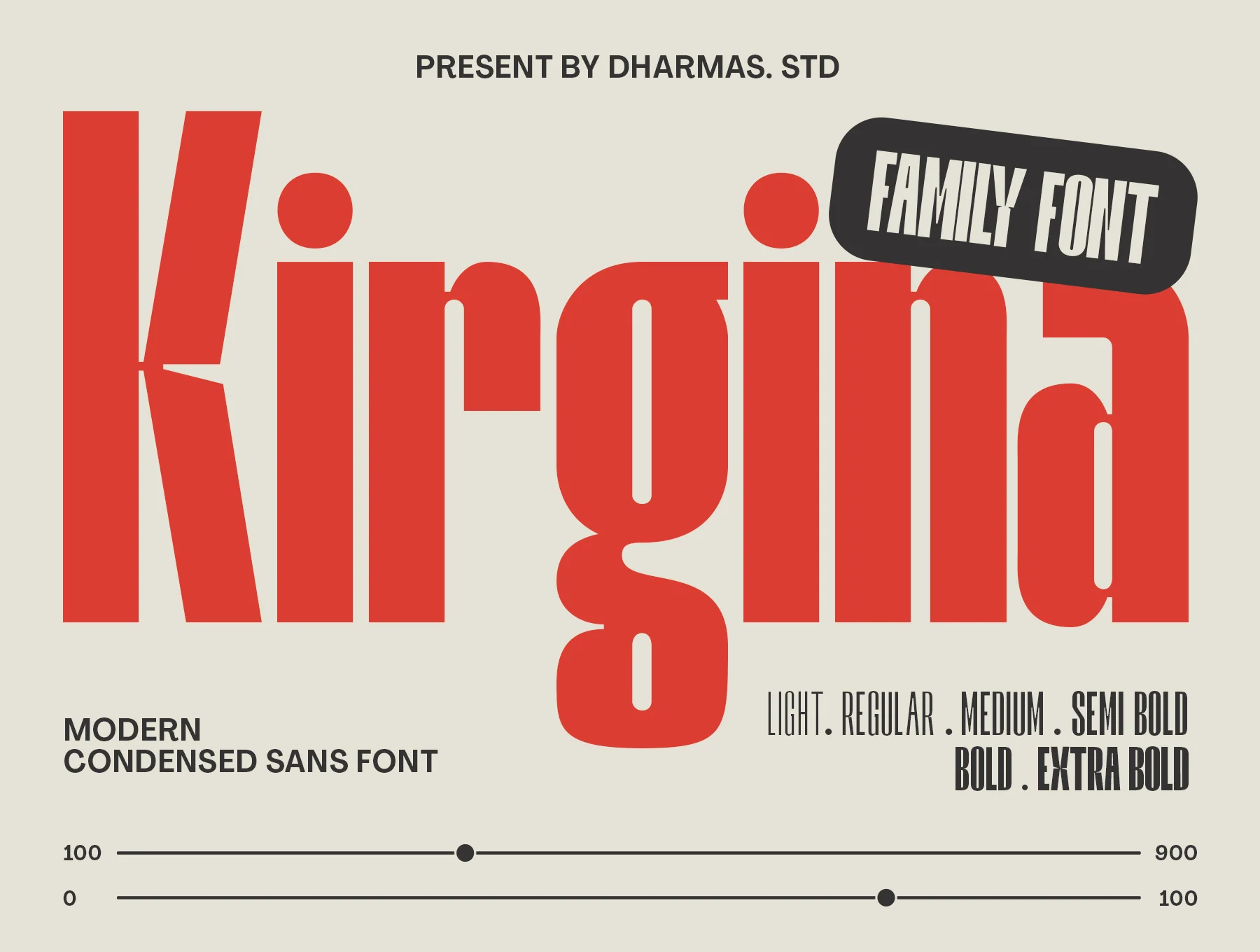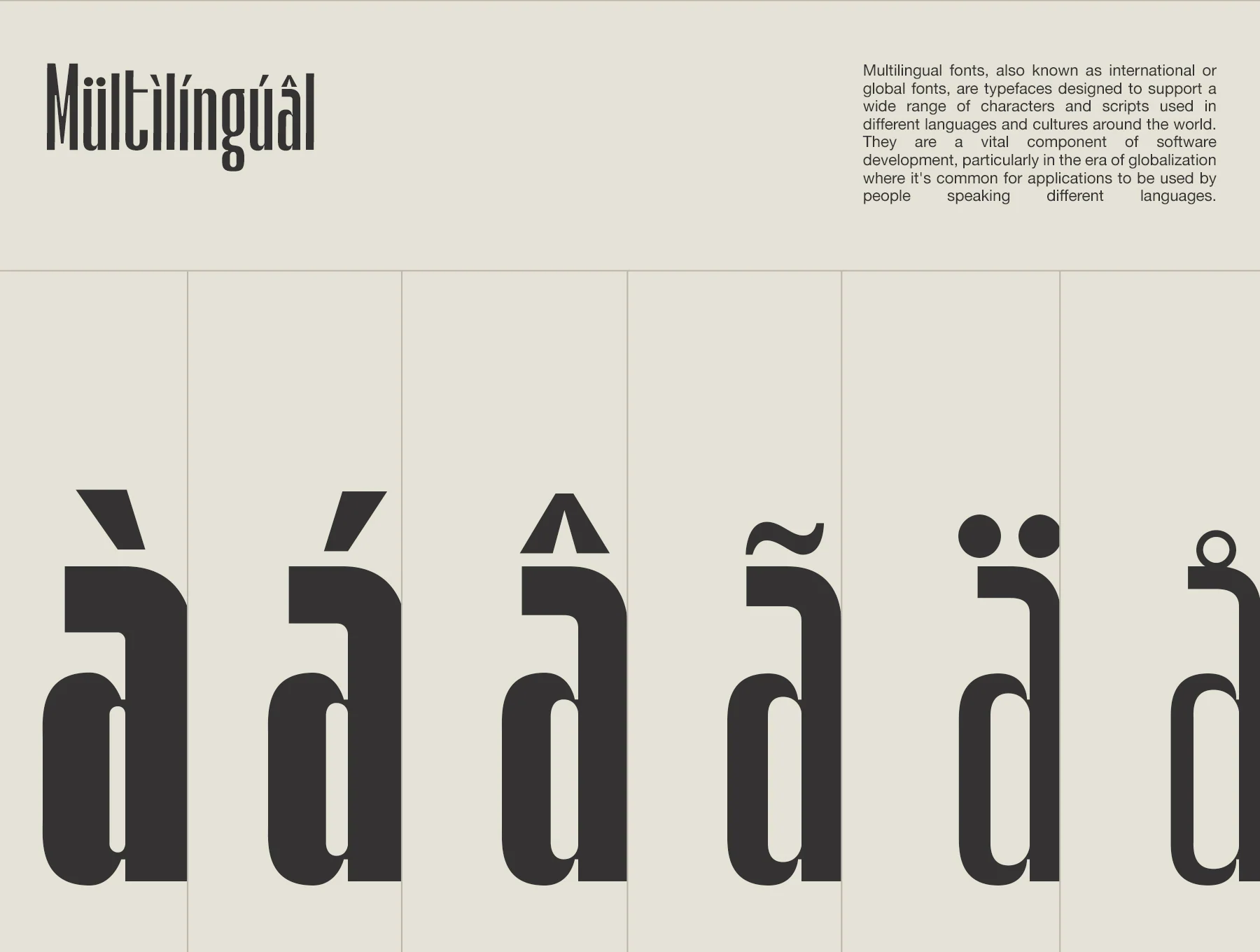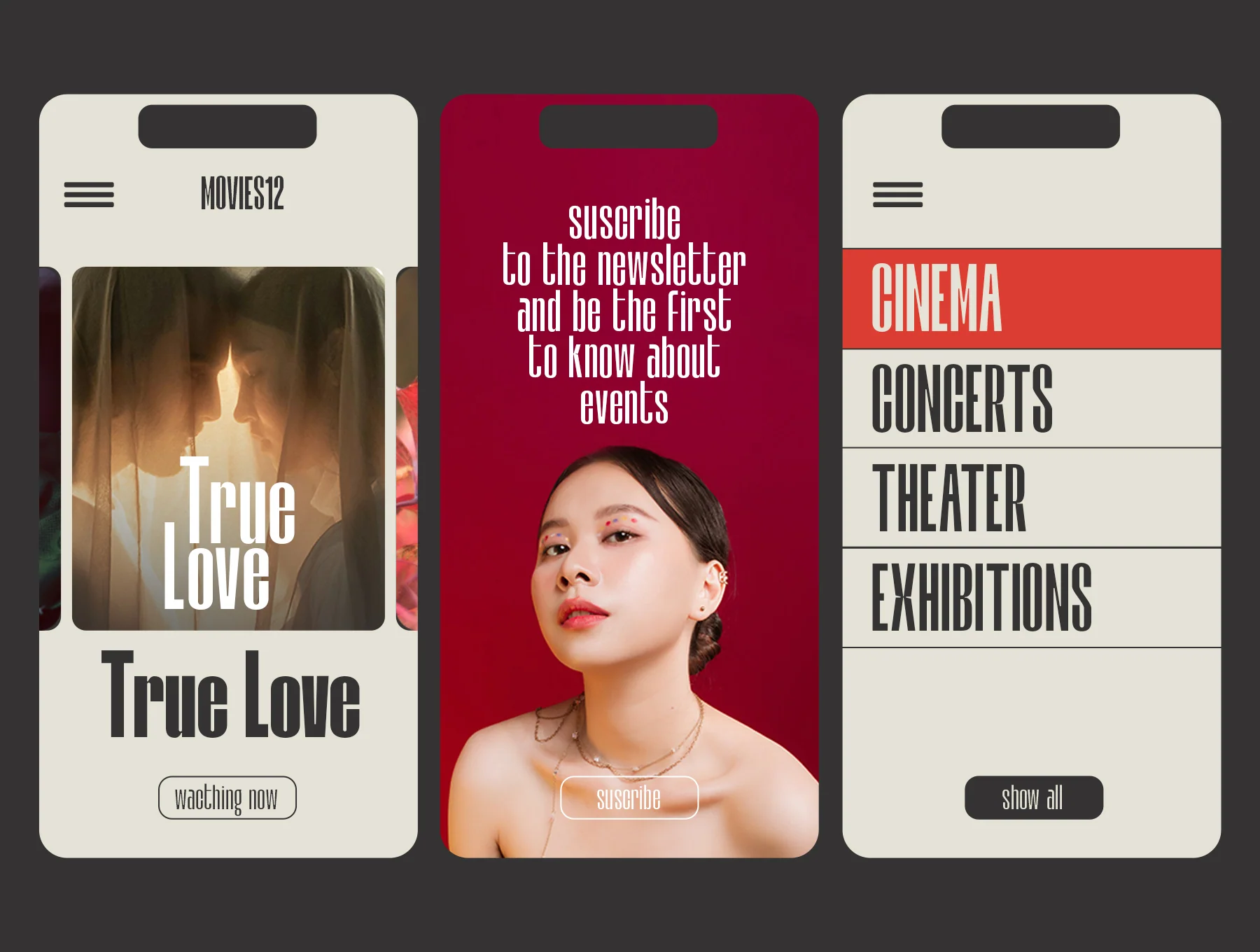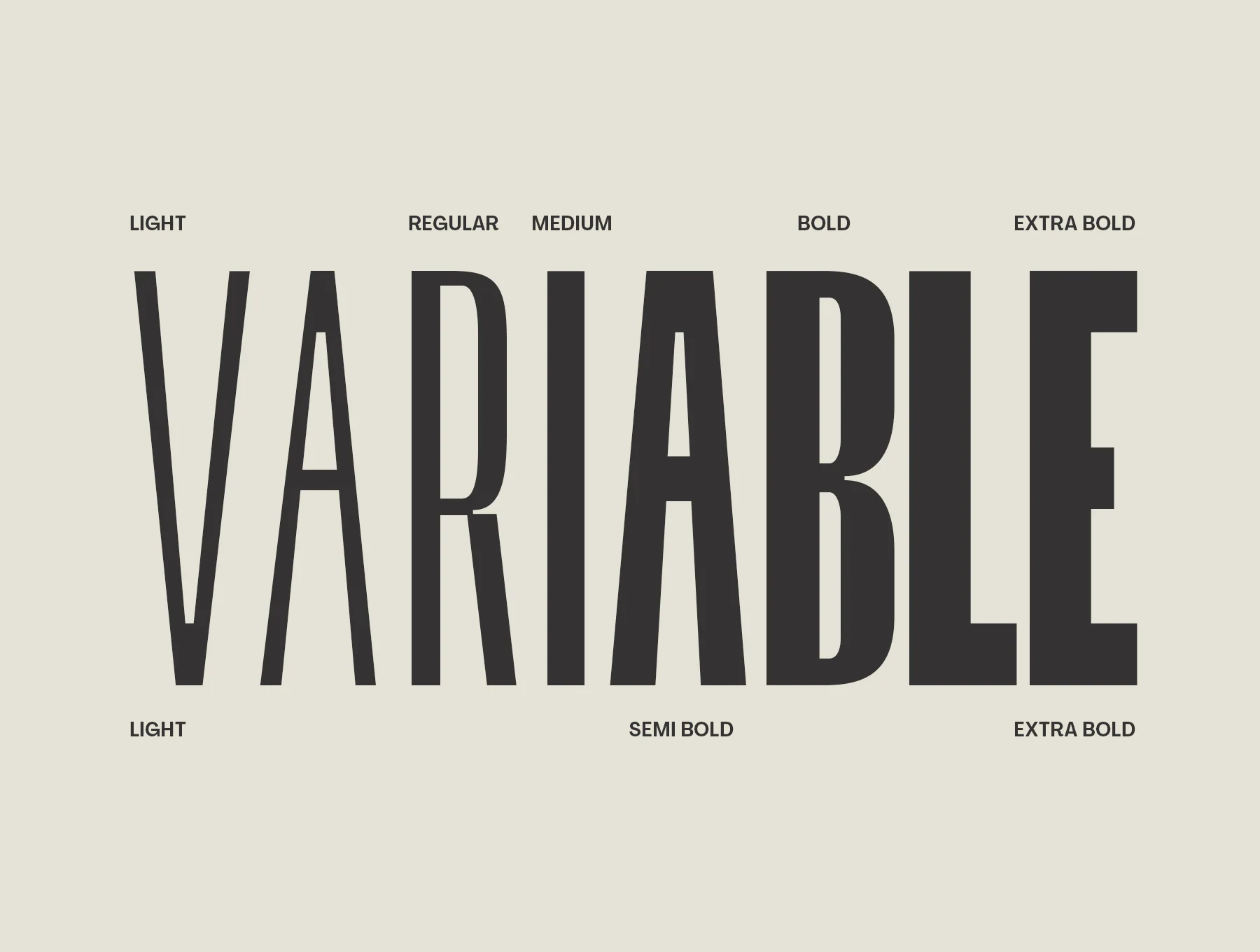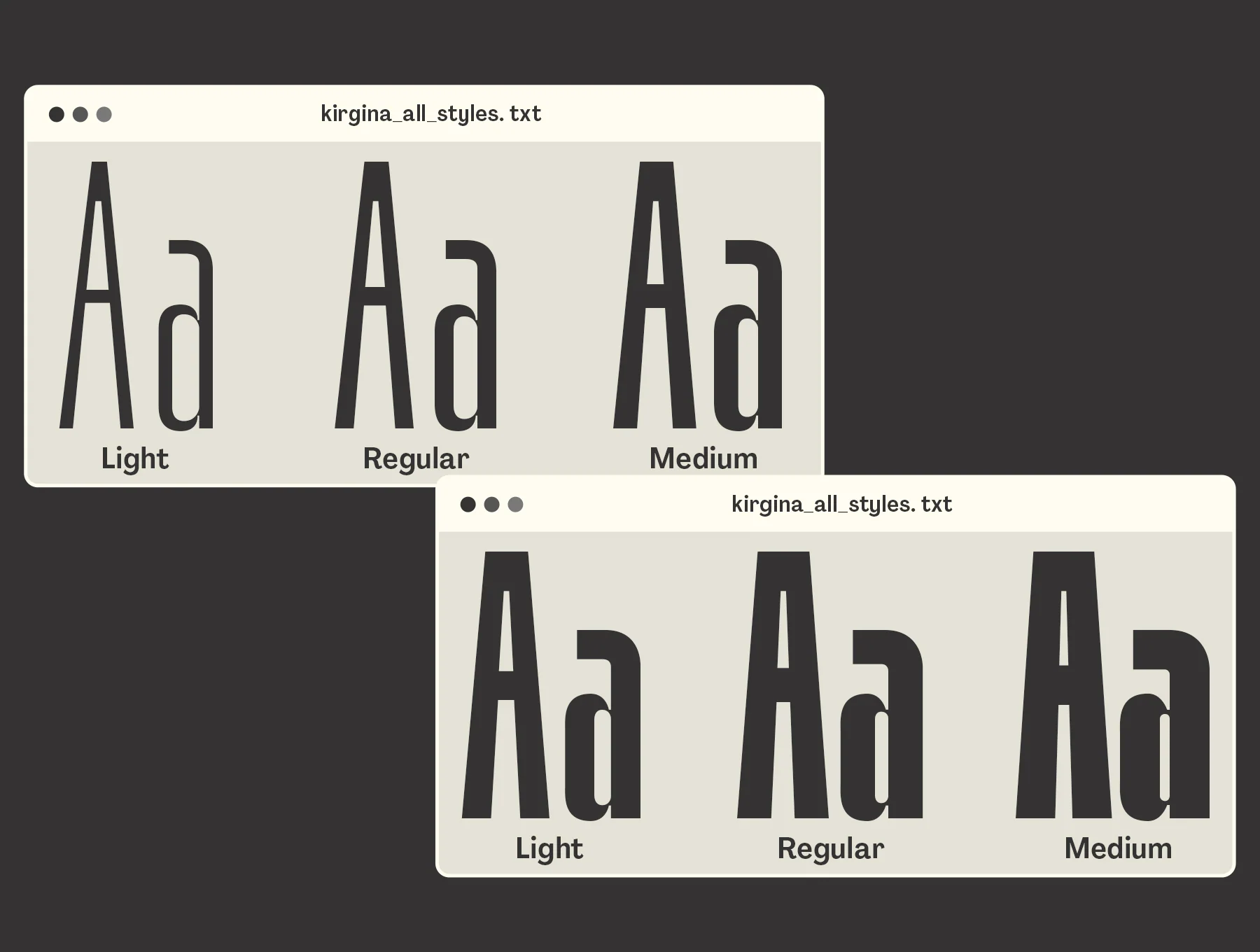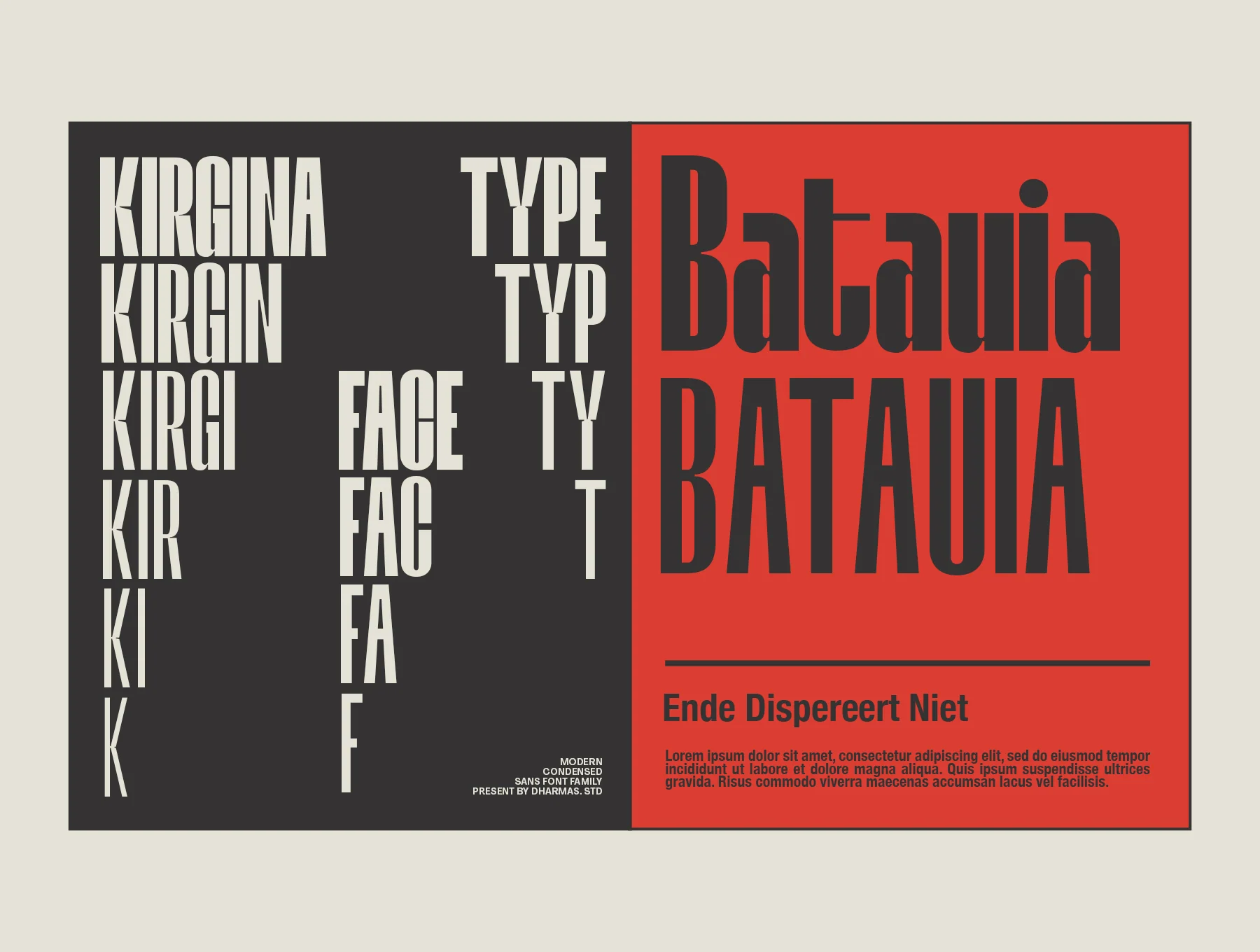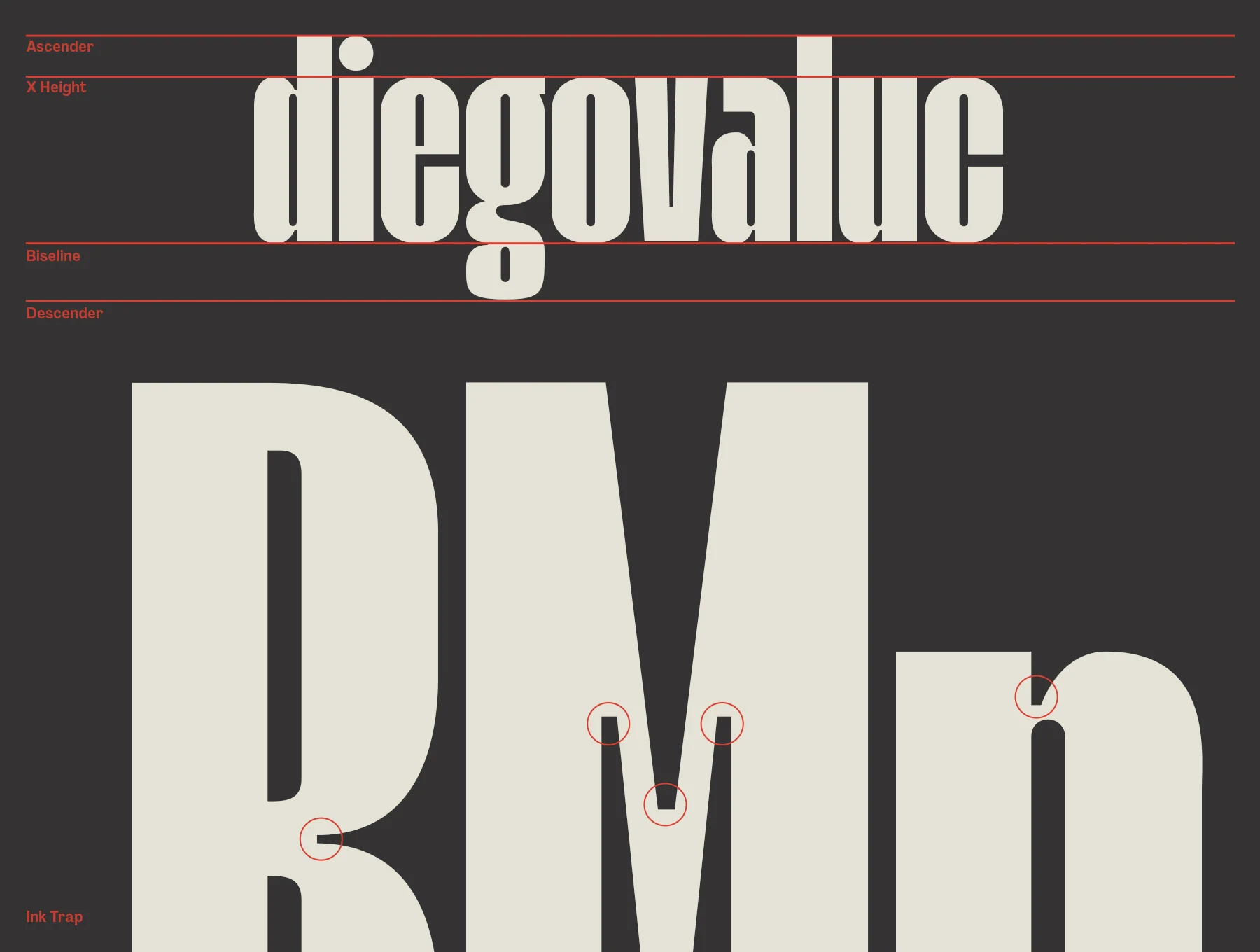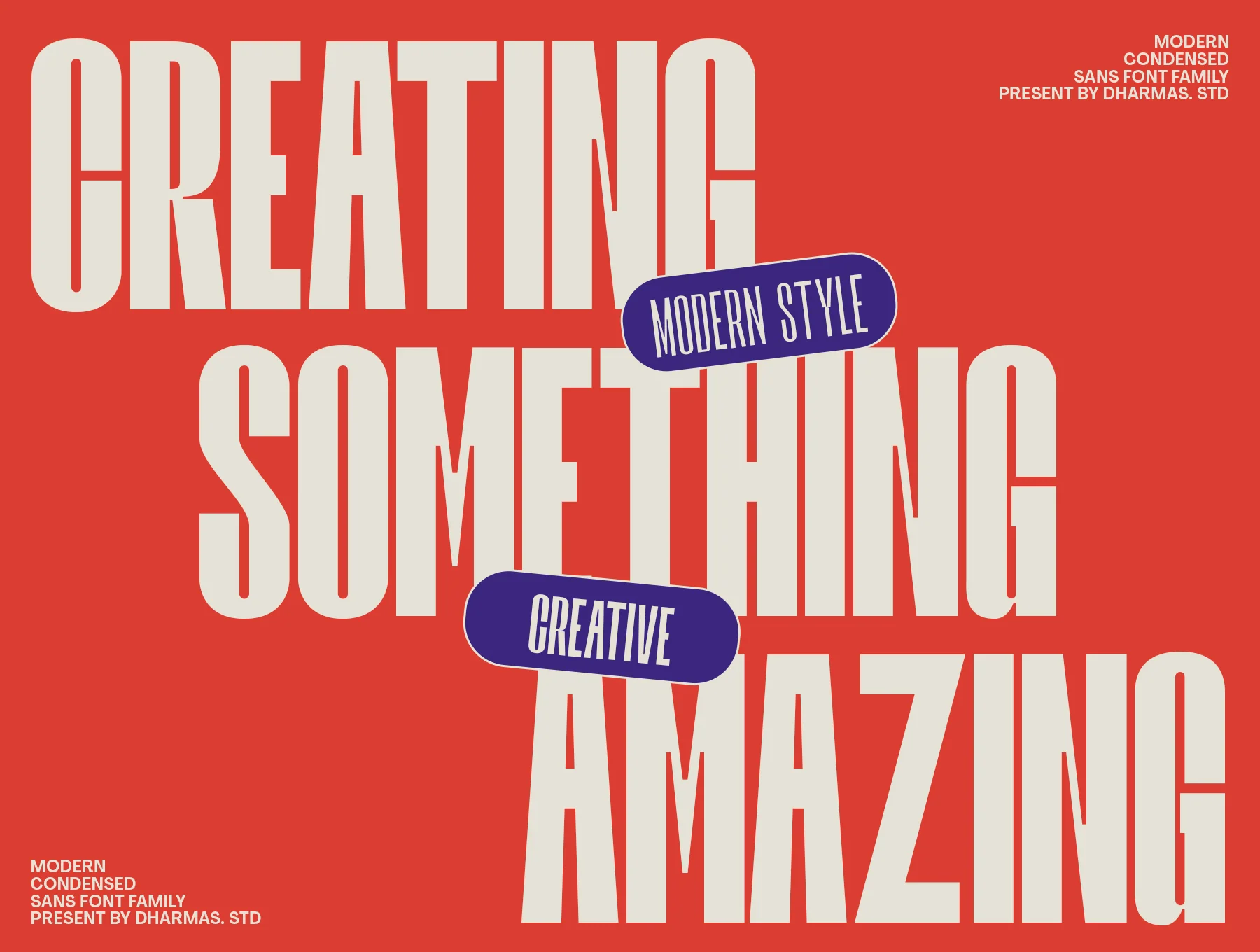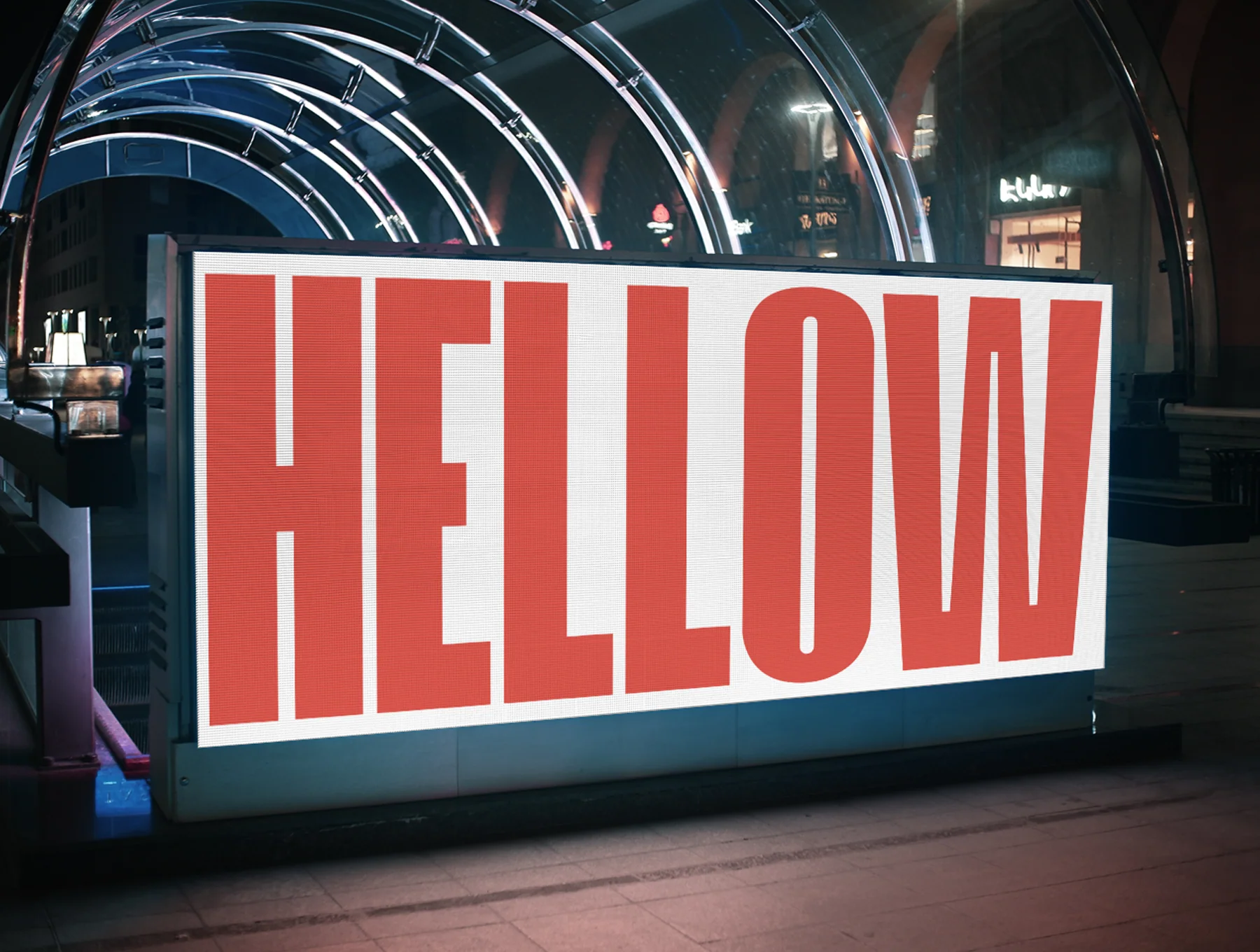
Kirgina - UI Condensed Font
Meet Kirgina, an ultra-condensed sans serif with a highly distinctive style
Offered in Light, Regular, Medium, SemiBold, Bold, and ExtraBold
Kirgina is a condensed sans-serif display family for striking, readable modern headlines. It includes 6 weights: Light, Regular, Medium, SemiBold, Bold, and ExtraBold, with high x-height, tight spacing, and unique glyphs. Ideal for posters, social posts, magazines, apparel, and large prints. Files: TTF, OTF, WOFF, WOFF2, PUA encoded, with multilingual Latin support.